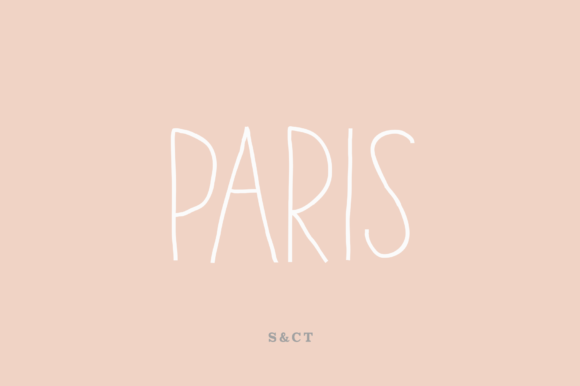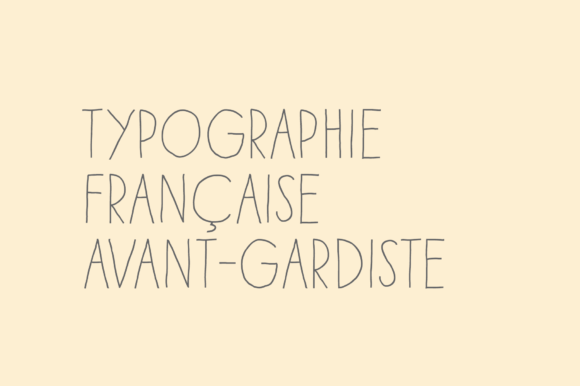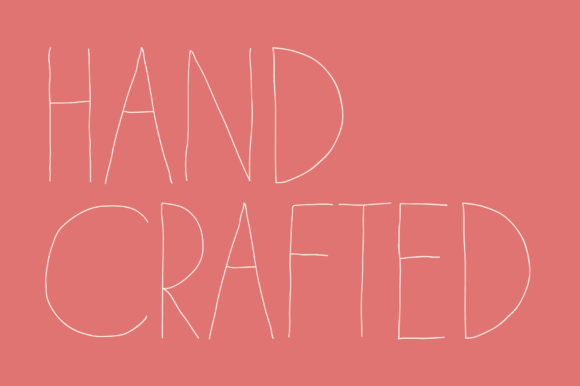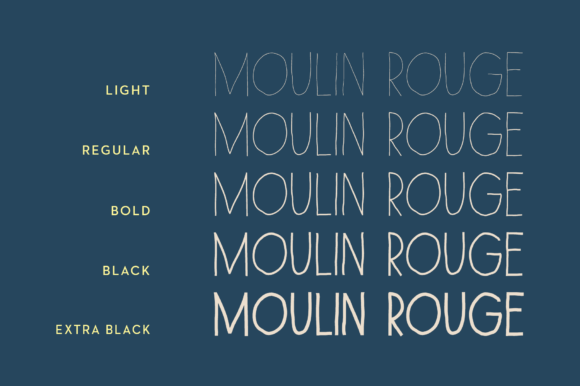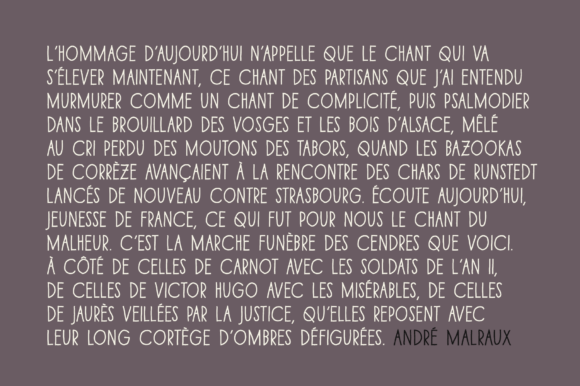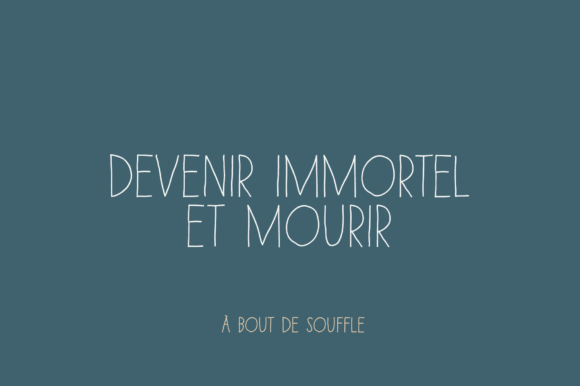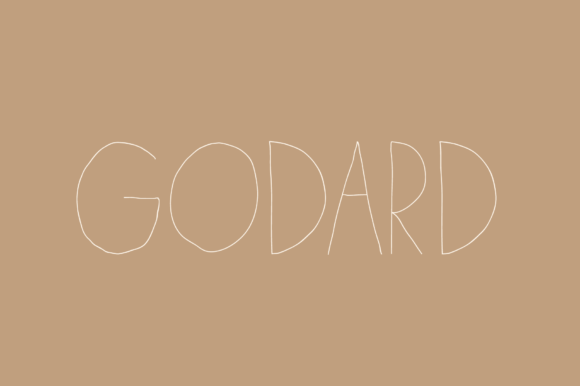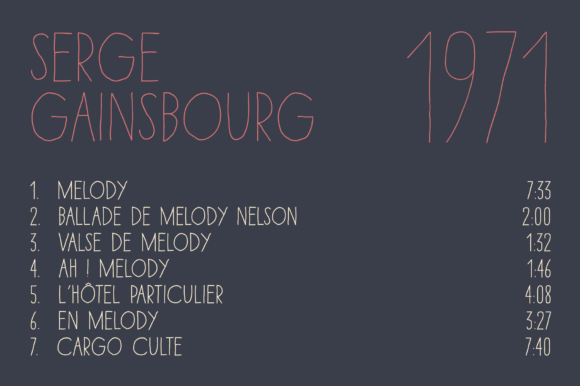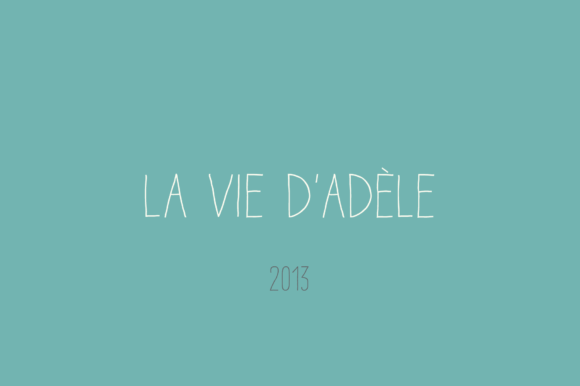
Paris is an avant-gardist handwritten font designed in Paris. It’s an all-caps thin font with extended glyphs for many languages. But the little difference between Paris from other handwriting typefaces is the Art Deco feel that brings it a retro and directly familiar look.
Paris Font